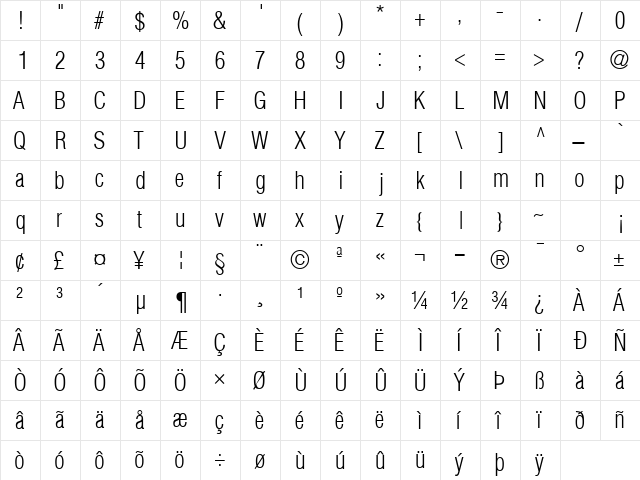
ContextLightCondSSK Regular Font Preview
ContextLightCondSSK Regular
Design Context for ContextLightCondSSK Typeface
ContextLightCondSSK is a composed and adaptable typeface that performs quietly and consistently across a wide range of design contexts. Its slender proportions lend an understated elegance to any composition. The condensed width makes it efficient for tight spaces without sacrificing legibility.